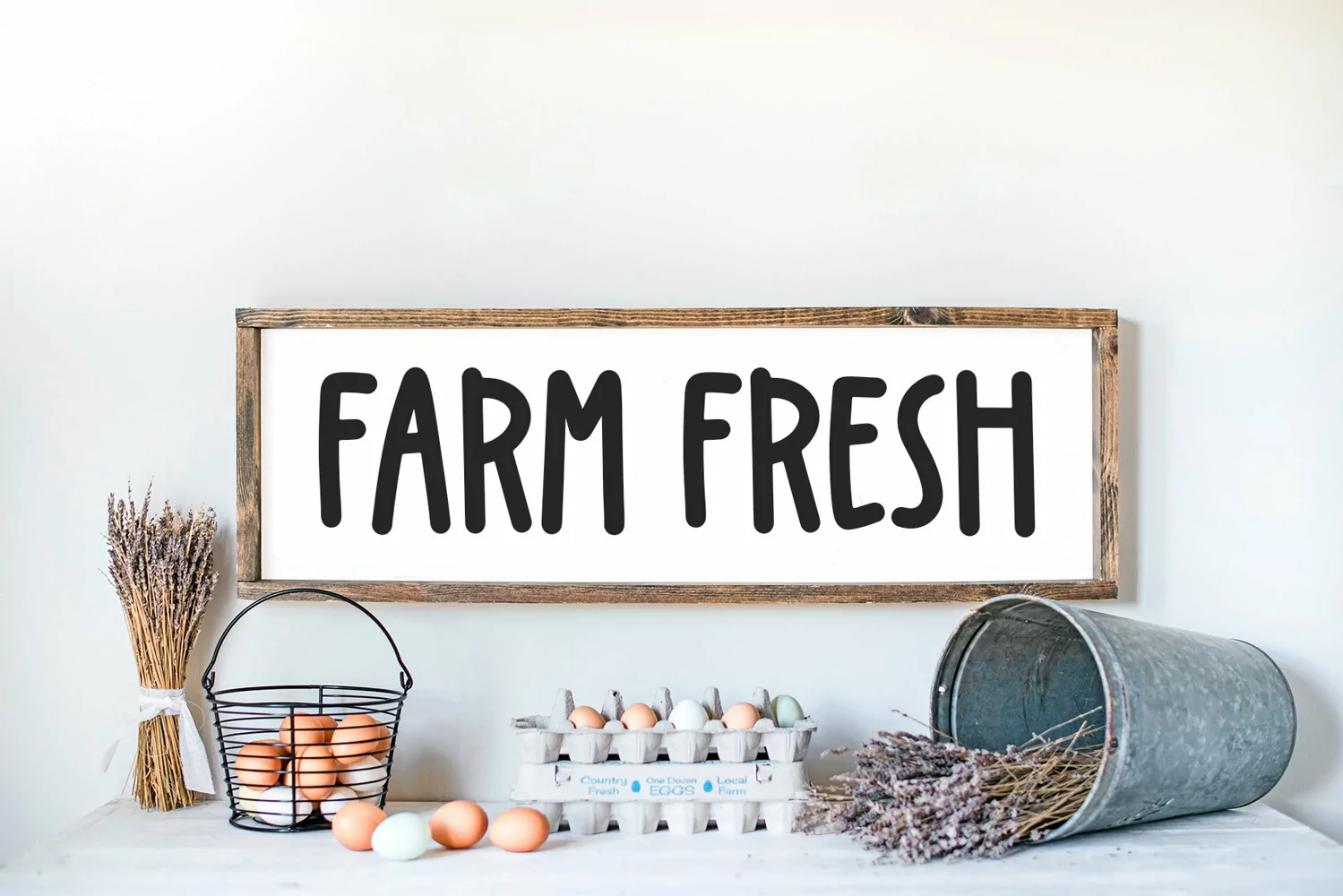
Farm Acres is a handwritten font perfect for your farmhouse designs!
Use this font for your craft projects, signs, farmhouse decor, shirts, vinyl, stickers, procreate and more!